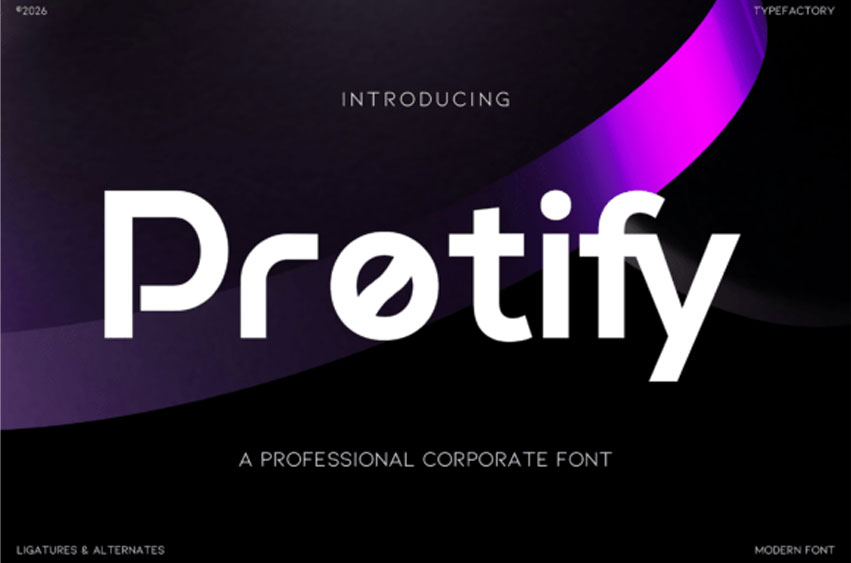
Protify Font
Protify Font is a modern corporate sans serif font that blends geometric simplicity with refined contemporary details. Featuring clean proportions, smooth curves, and distinctive alternate characters, it delivers a professional yet approachable personality.
Designed for branding, business identities, editorial layouts, technology products, UI design, presentations, websites, packaging, and minimalist visual communication, Protify offers excellent readability while adding a subtle modern signature to every project.